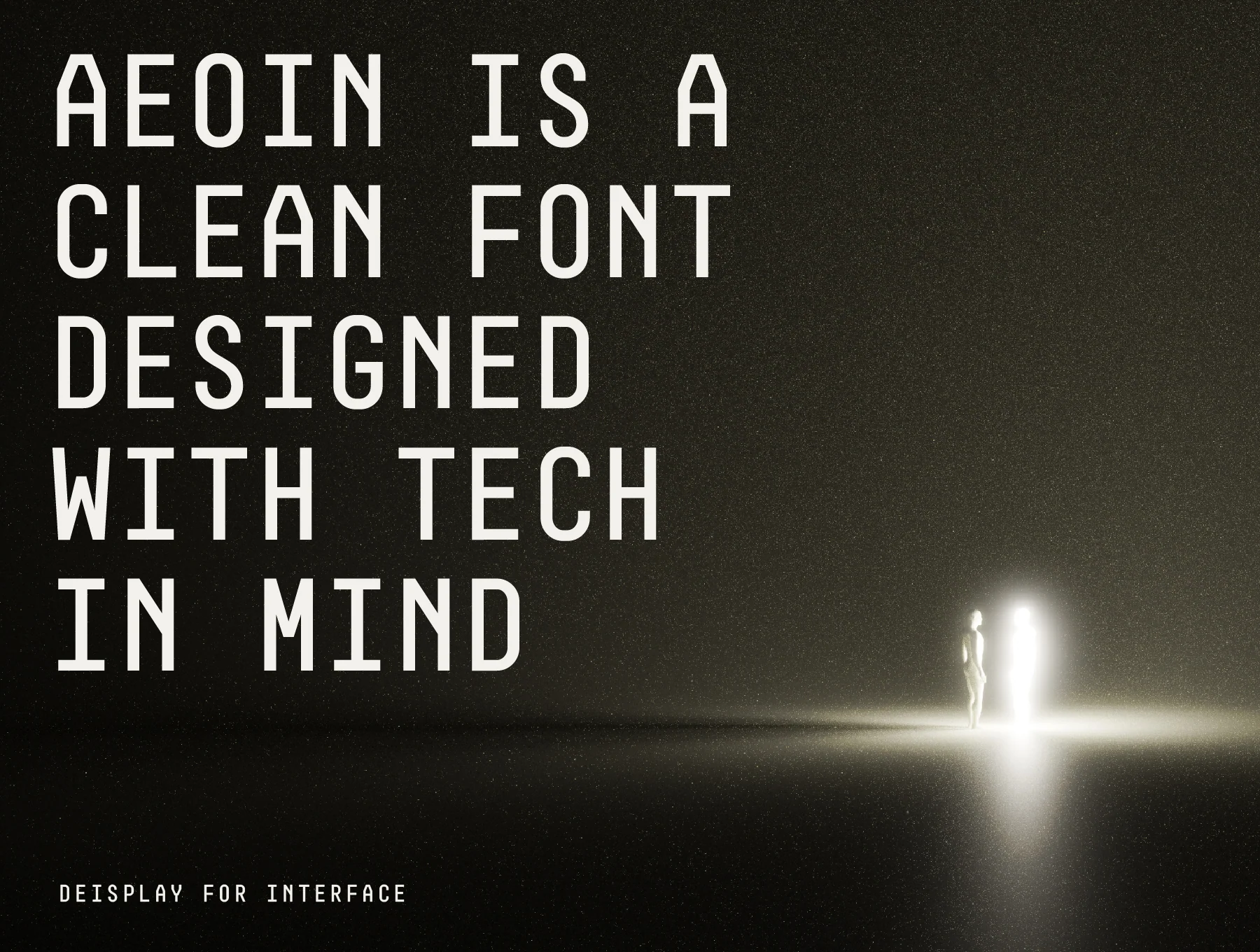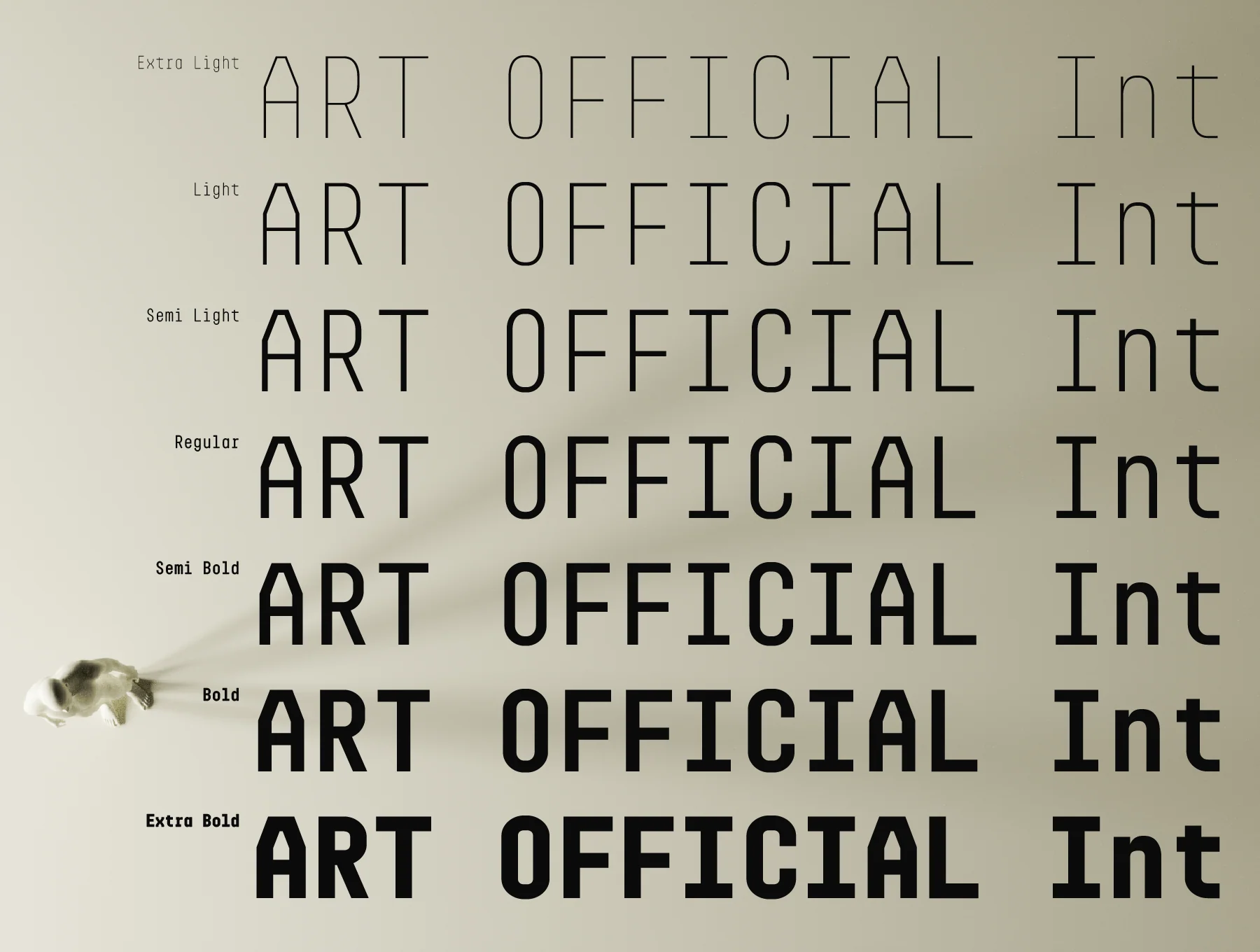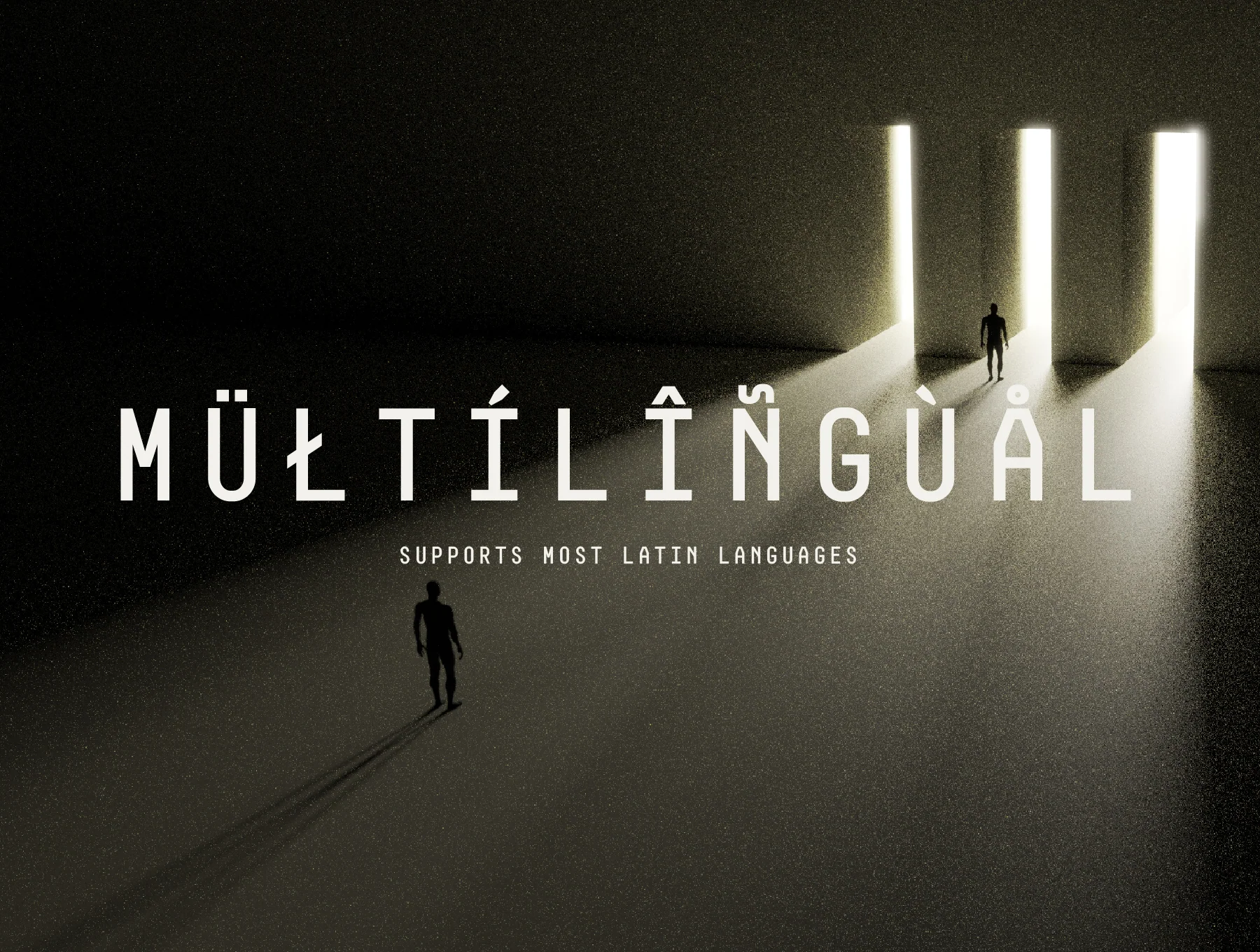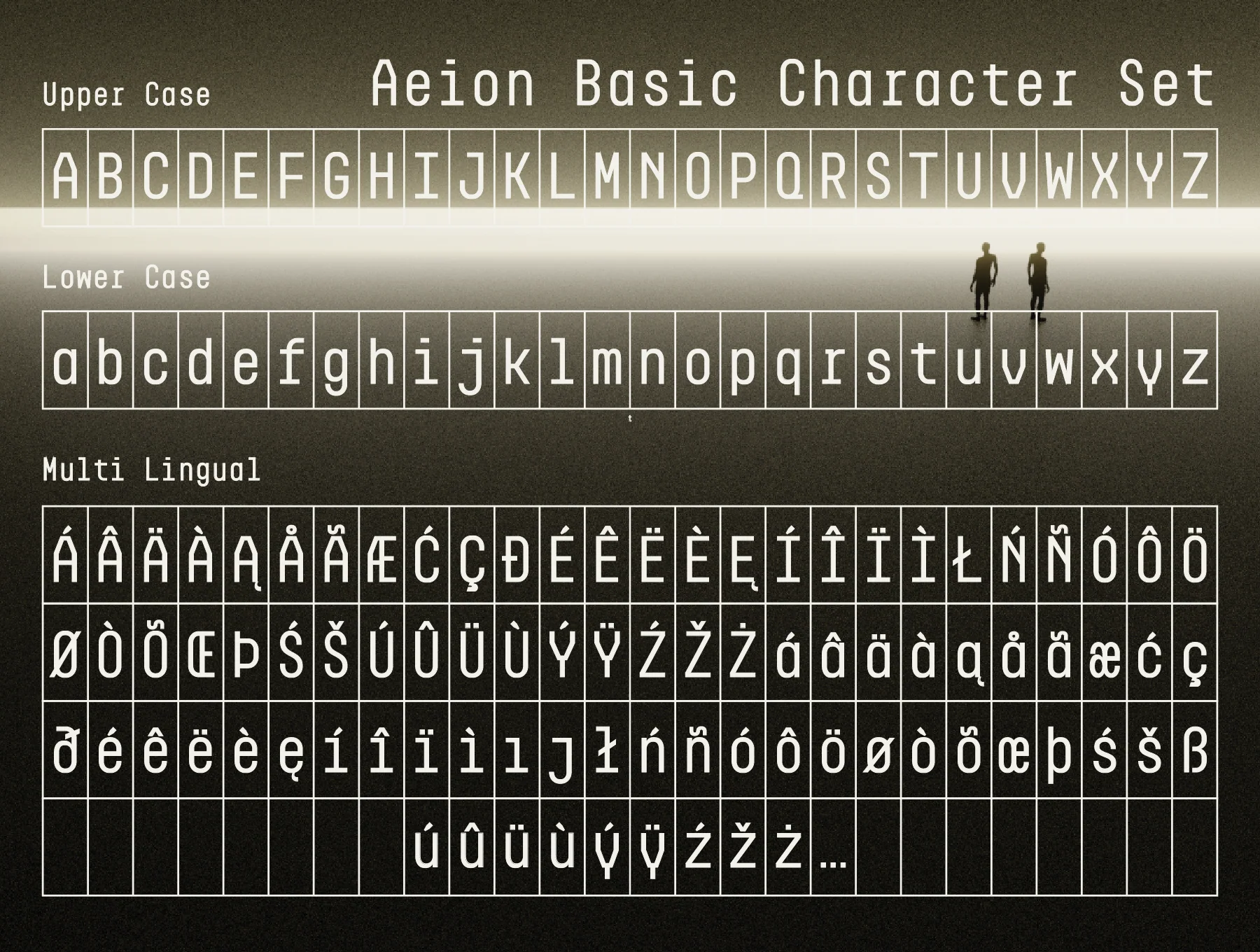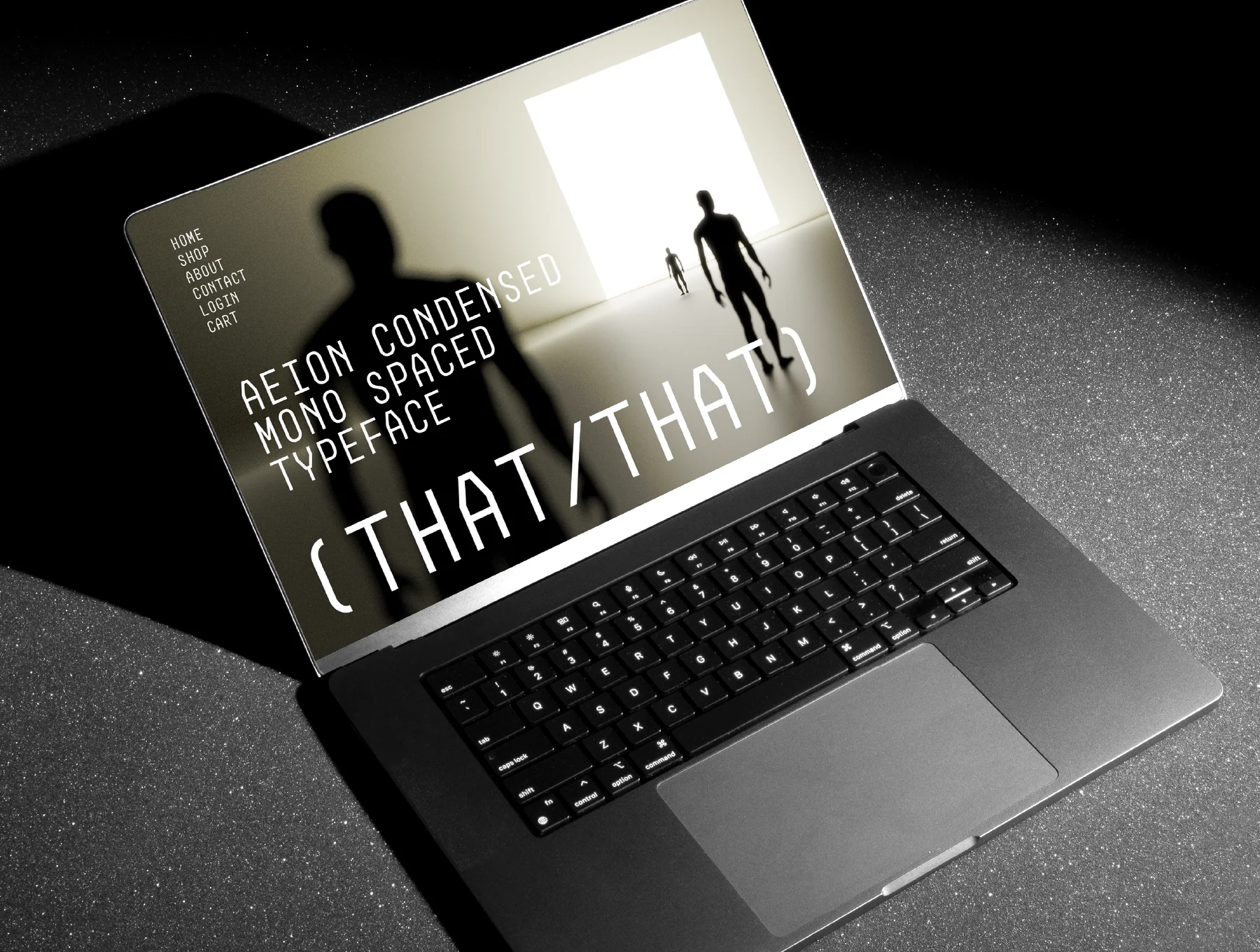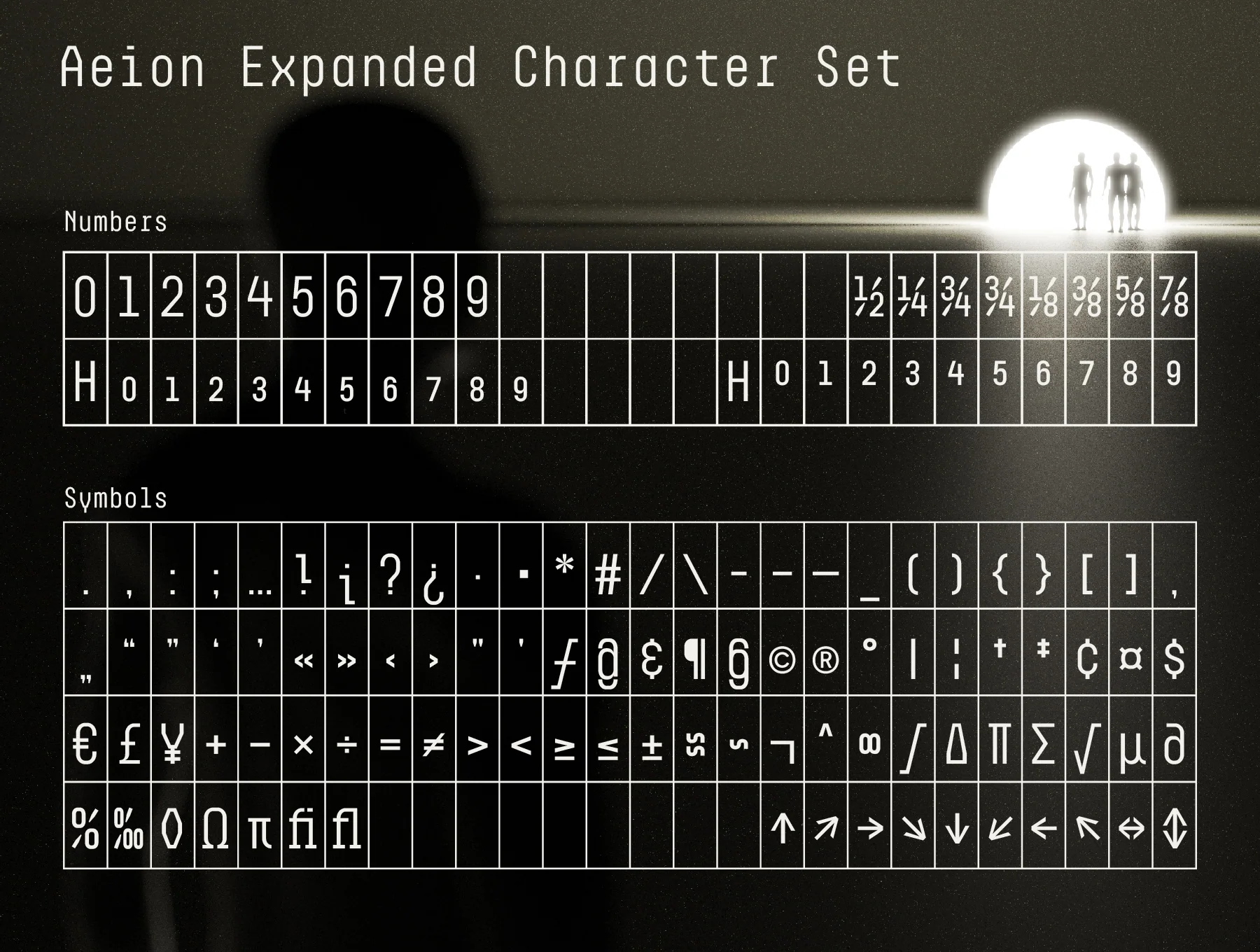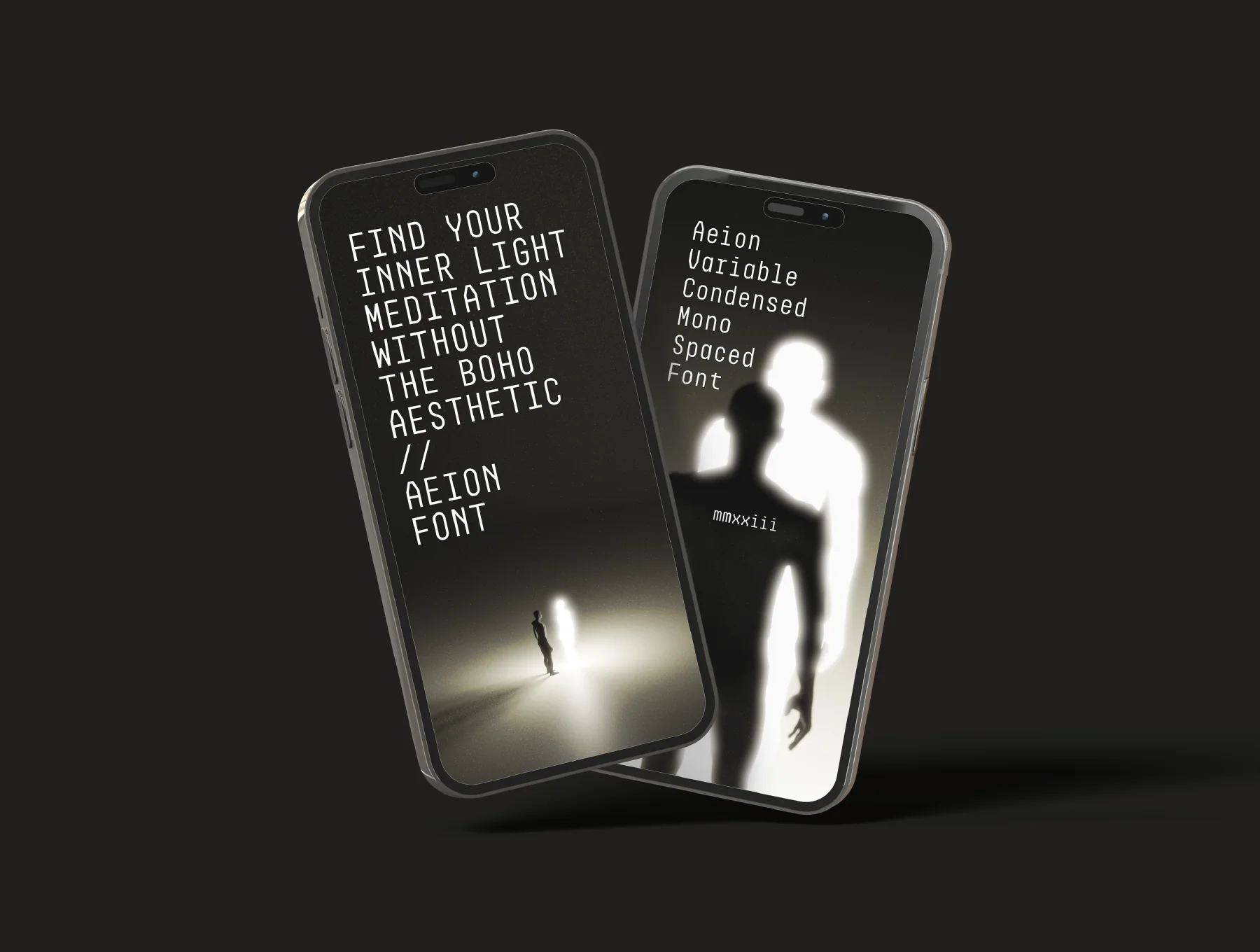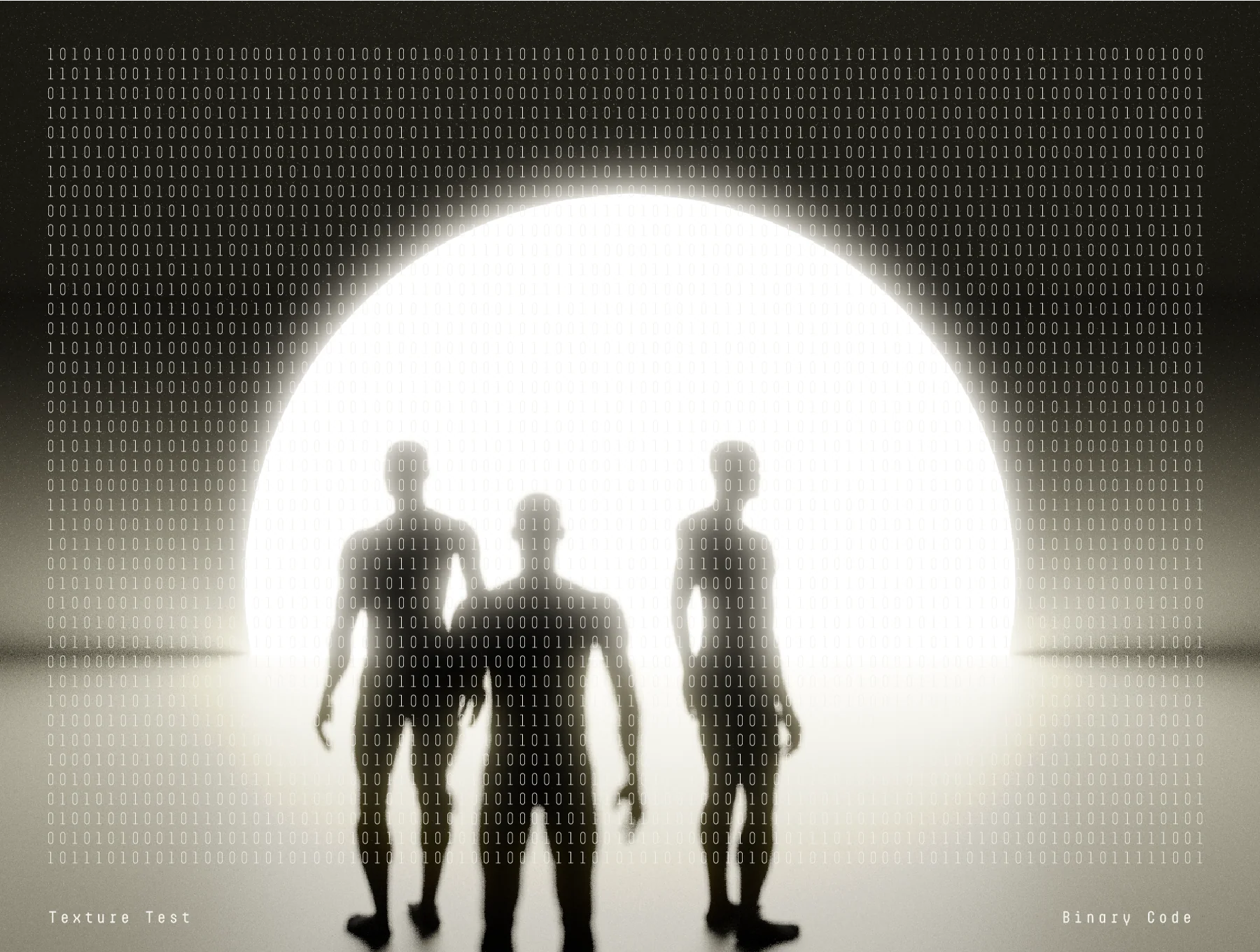
Aeion Mono Spaced Variable Font Family
Aeion: 7-weight condensed monospaced variable font family
Adjustable style
Seven font weights
Fixed-width spacing
Aeion is a condensed monospaced typeface with 7 weights plus a variable version, created for tech-focused design. Its serious, modern look carries a subtle retro edge, making it ideal for posters, branding, social posts, magazines, logos, and bold display use.